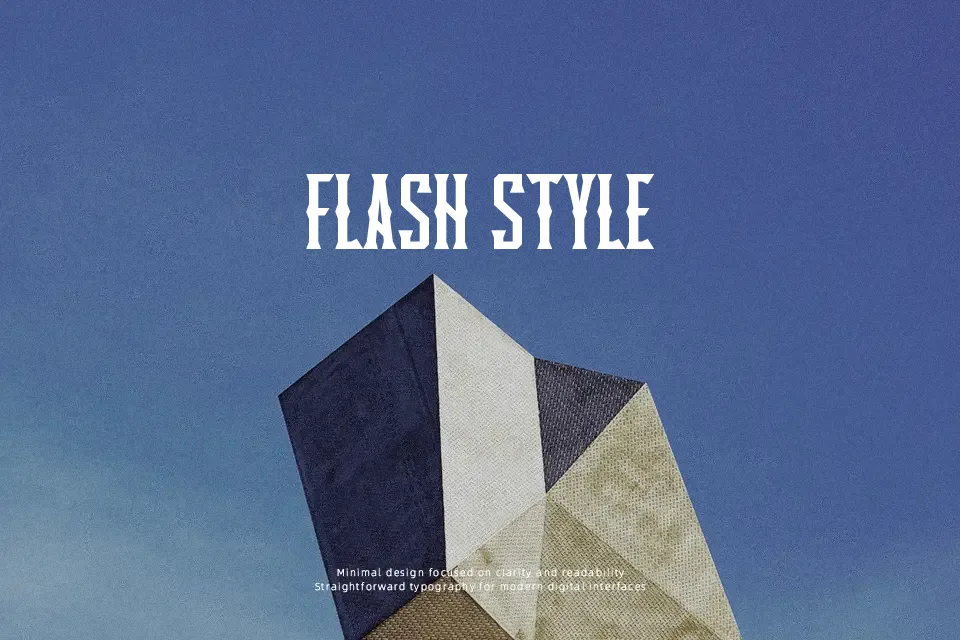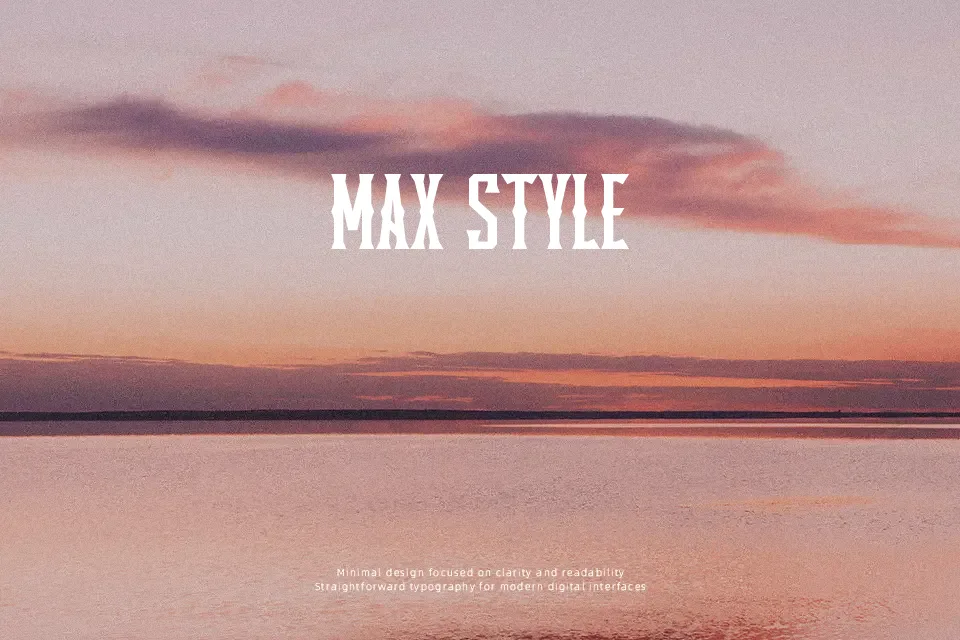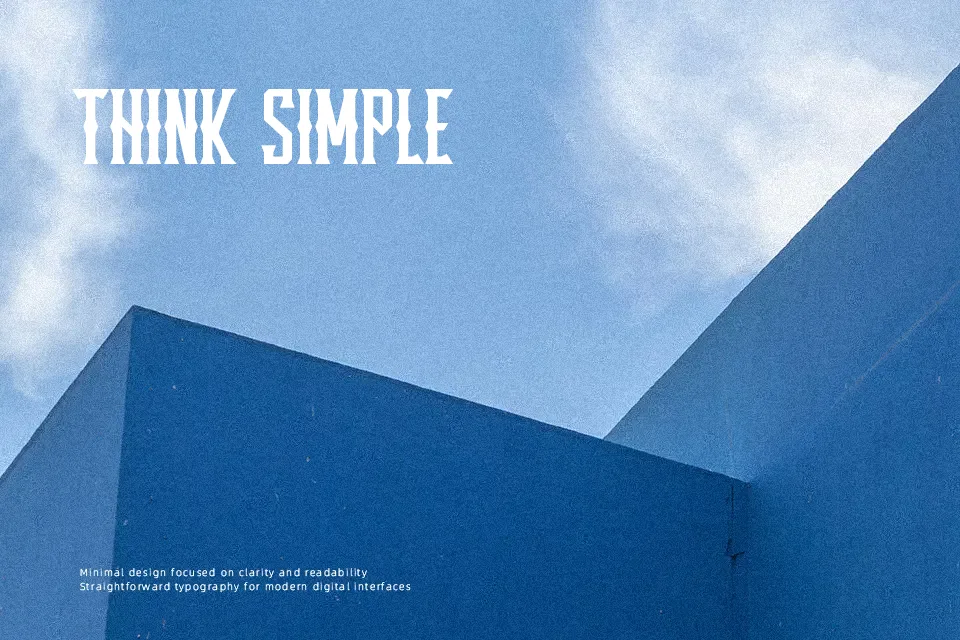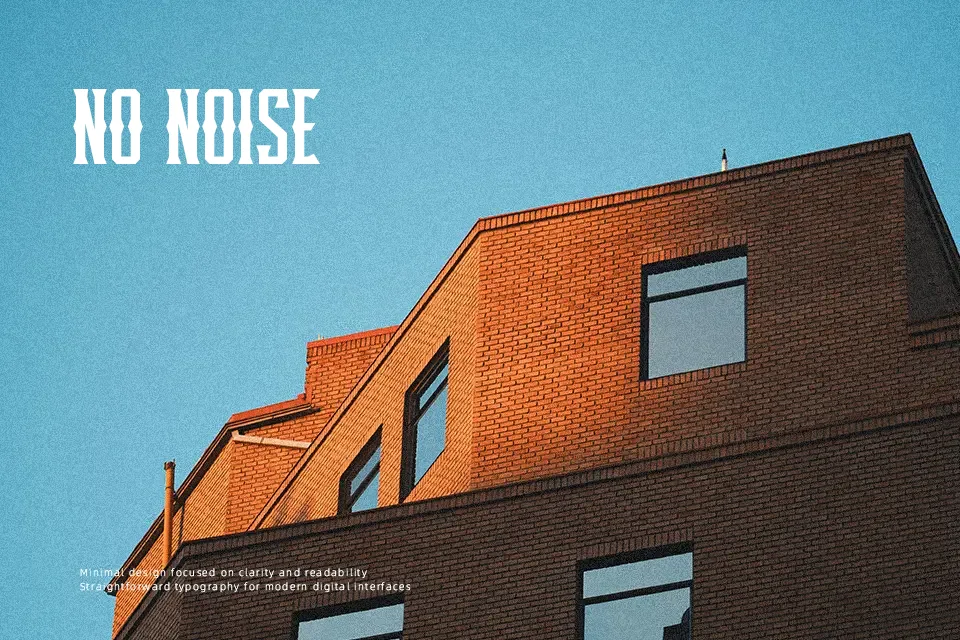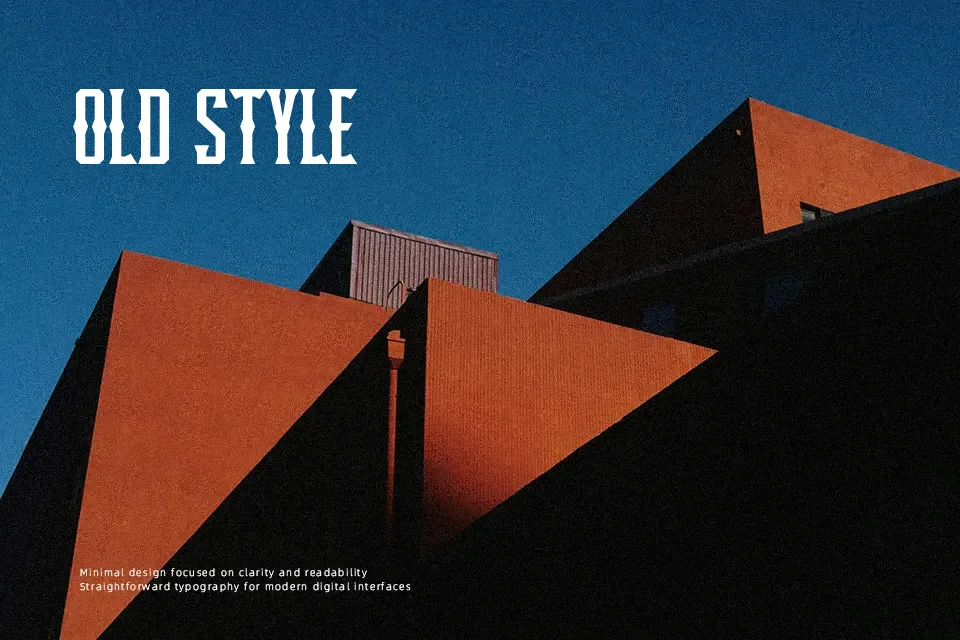
Pineforest Font
Pineforest Font uses tall, uneven display letterforms with narrow proportions, pointed terminals, and an organic, tree-like texture across the visible glyphs. The spacing gives individual characters room to show their silhouette, while the varied strokes create a rough, decorative rhythm rather than a uniform text color. Uppercase letters have the strongest presence in titles and short words, and the visible numerals follow the same stylized construction. It works best at large sizes for woodland event graphics, labels, or atmospheric headlines. The distinctive details help short display text stand out, but reduce clarity in small captions, long passages, and tightly set information.
Perfect for headline, logo, and packaging, with a creative and decorative style.